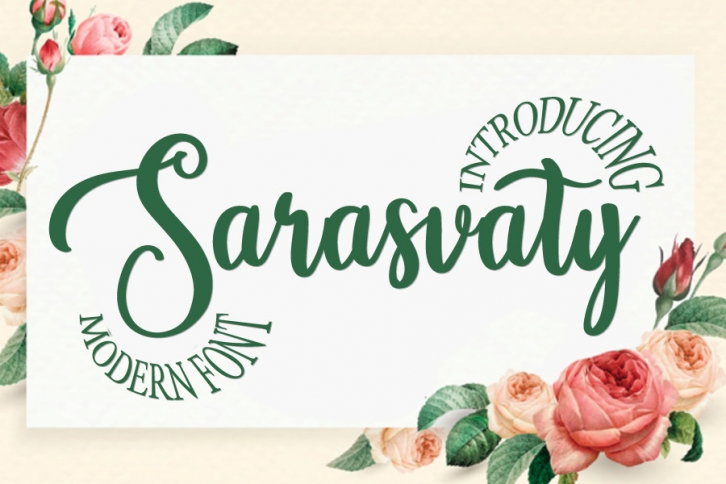
Sarasvaty is a dazzling script font. This font is neatly crafted and highly detailed. Whatever the topic, it will be a wonderful asset to your font library, as it has the potential to enhance any creation.